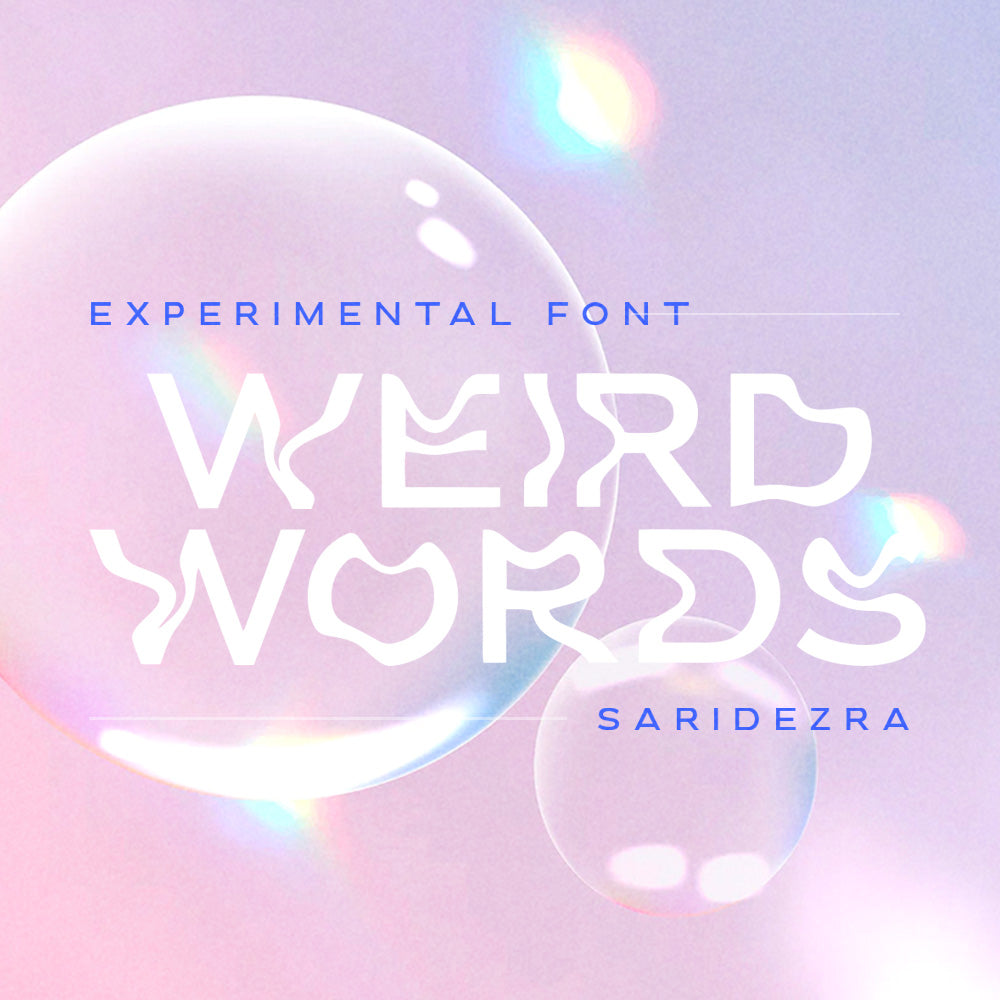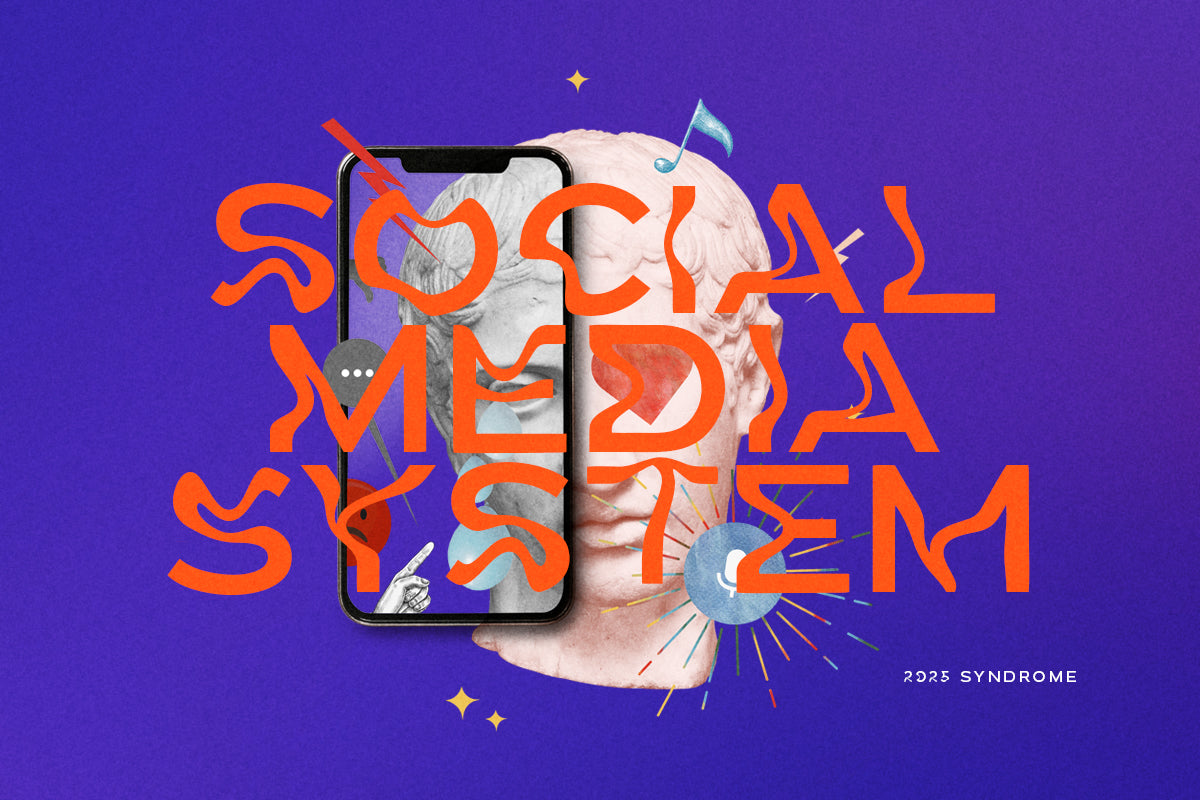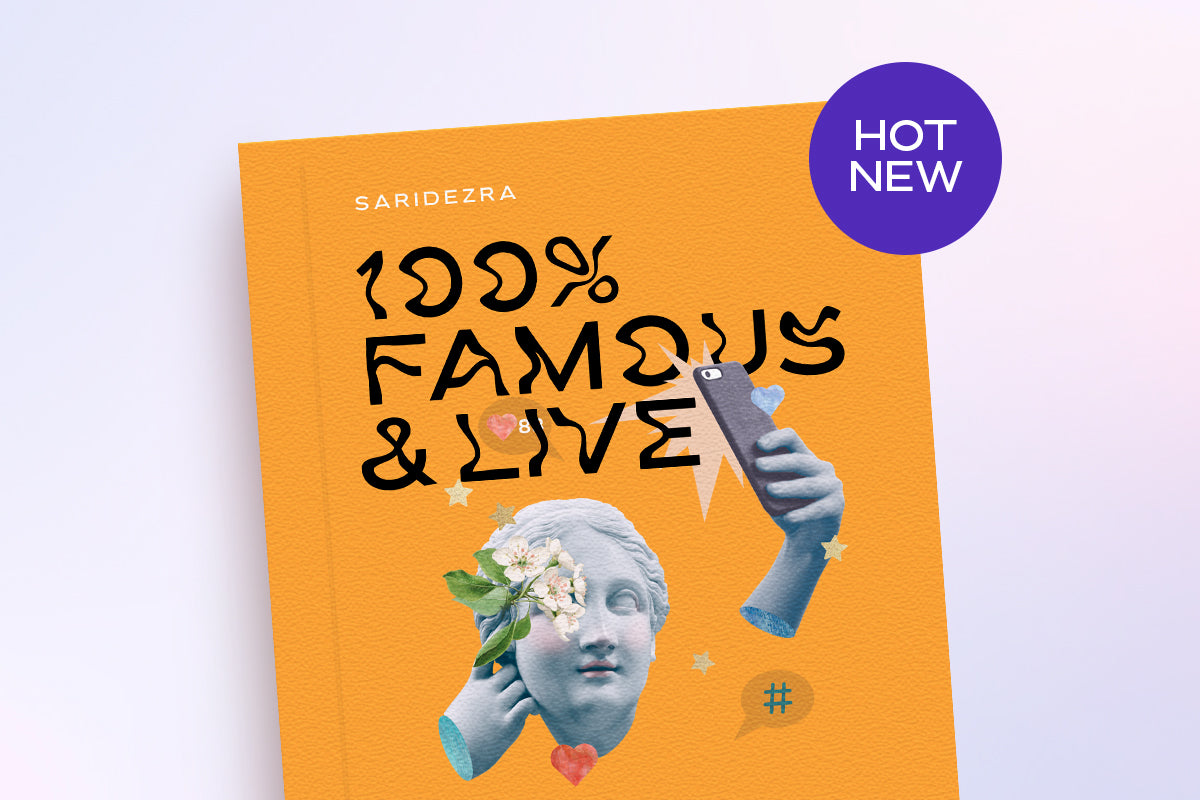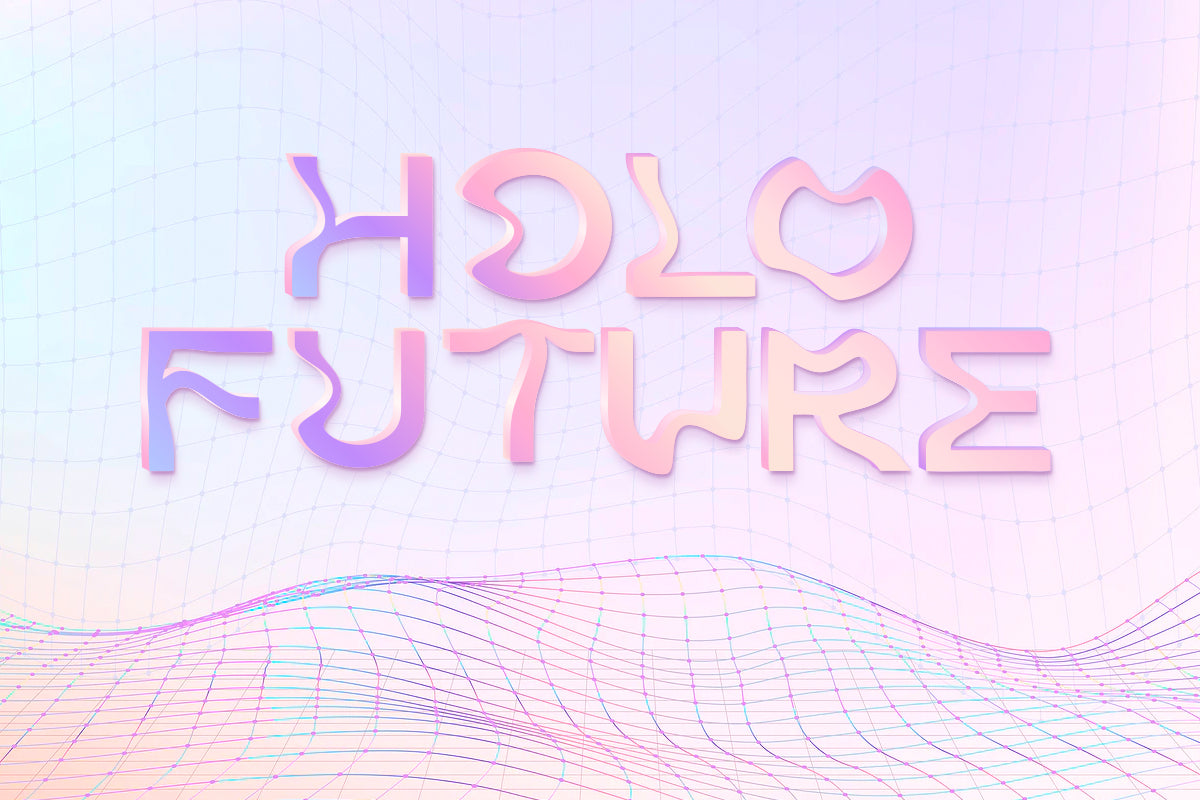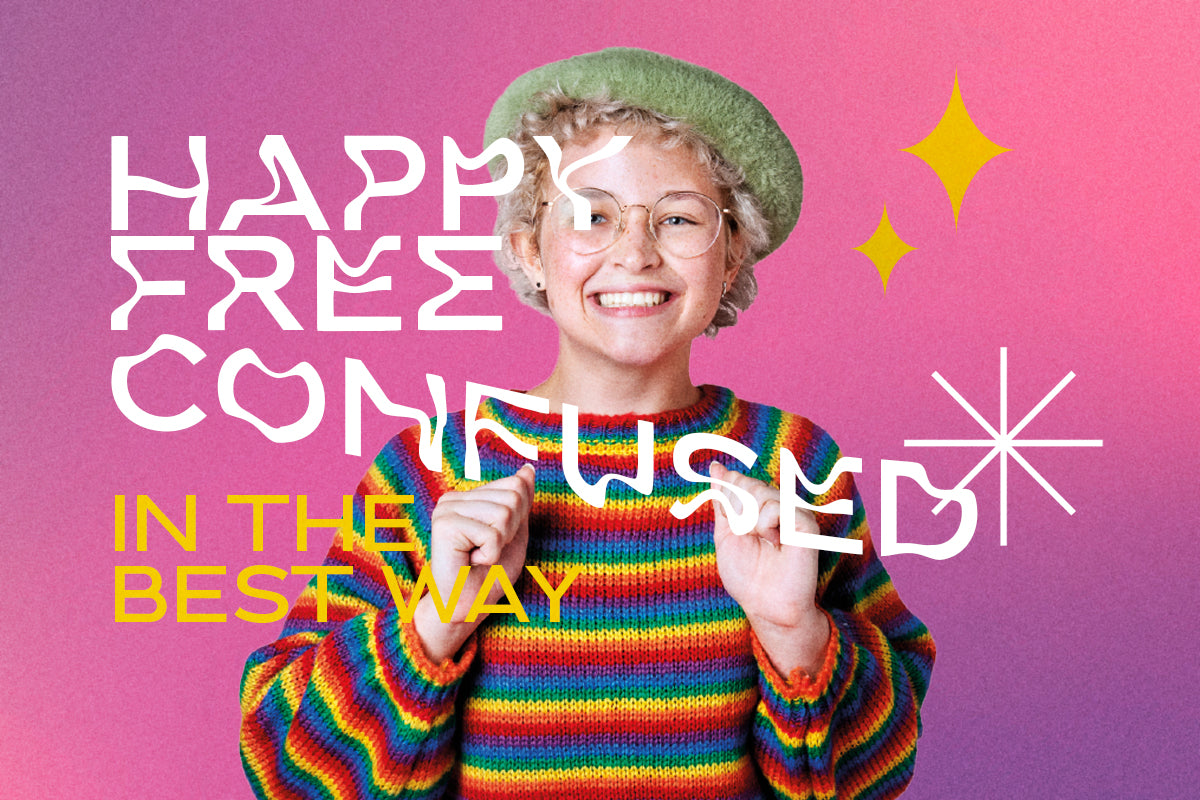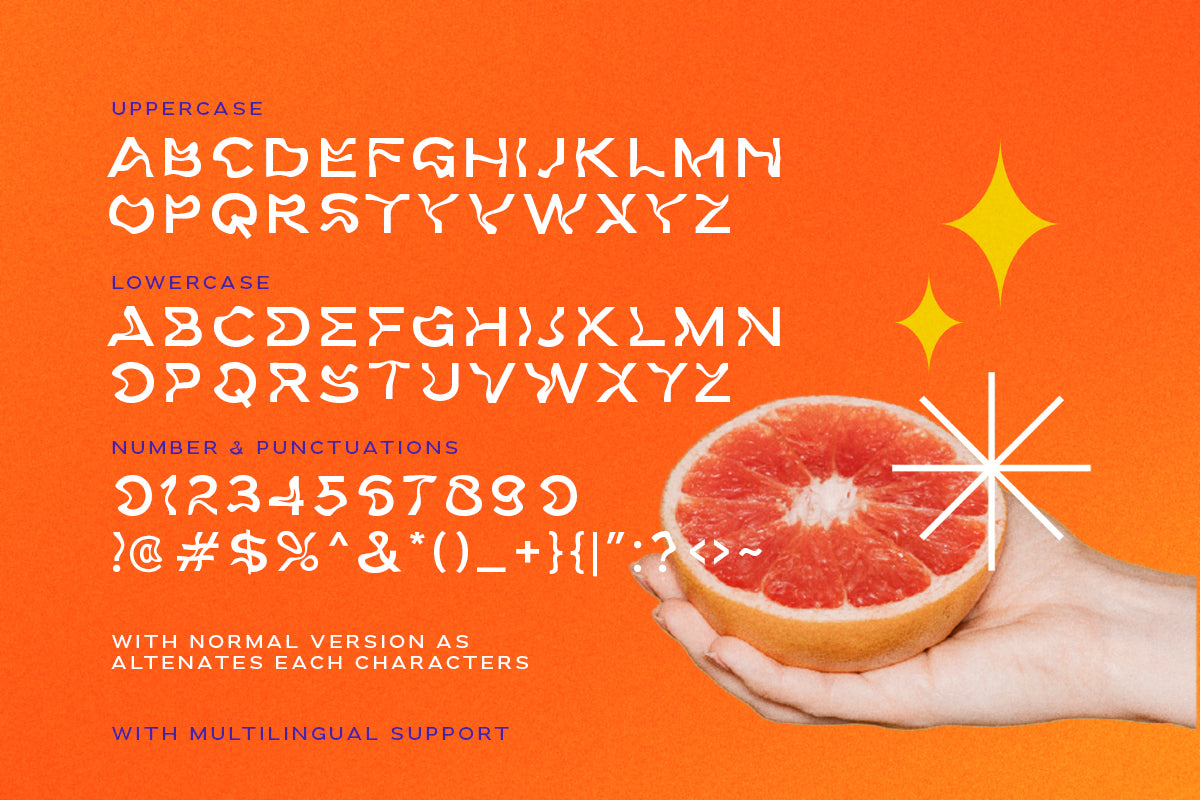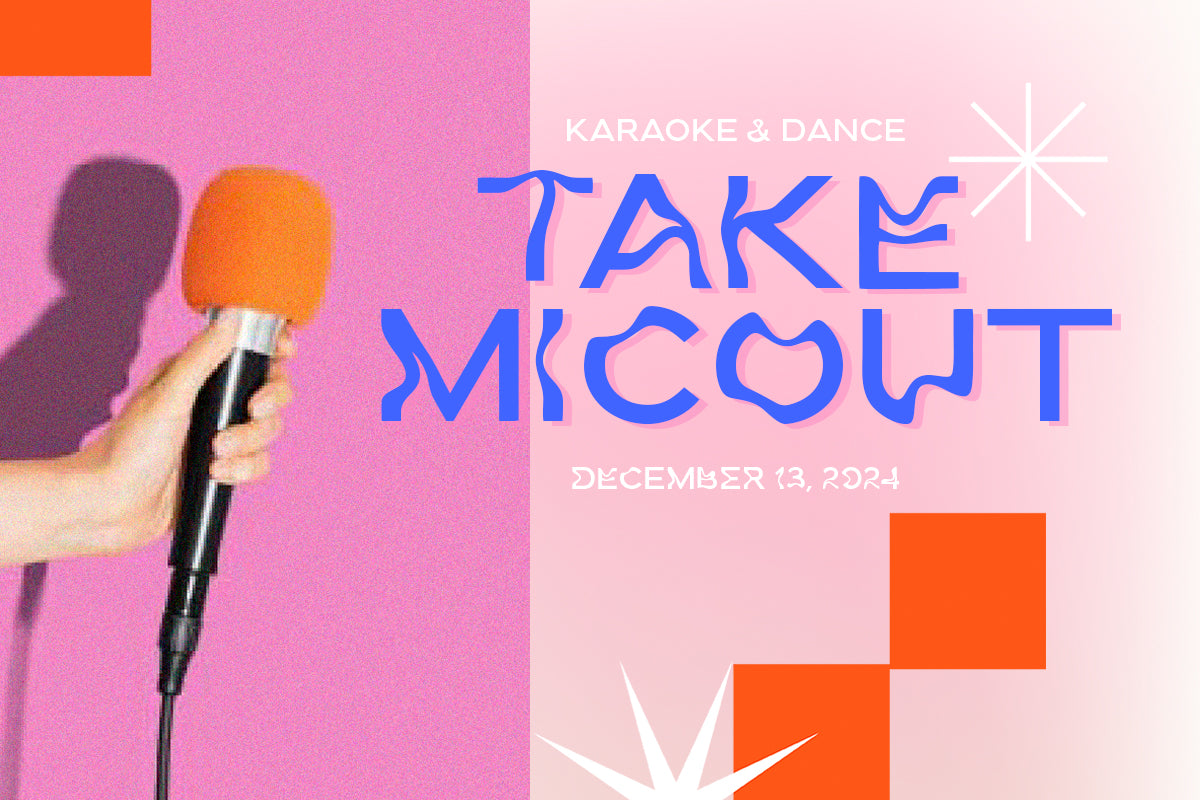
Weird Words - Experimental Font
Weird Words is an experimental sans-serif font featuring unique uppercase and lowercase forms that can be combined within the same word. It supports multiple languages and is designed for use in various display contexts, including social media posts and posters.